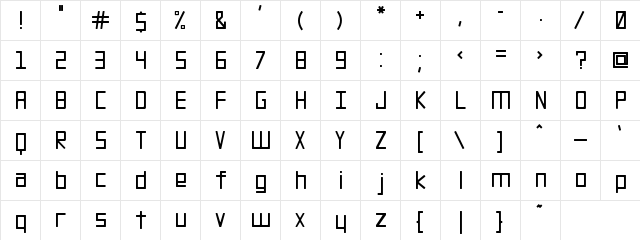
Screaming Neon Regular
Design Context for Screaming Neon Typeface
Screaming Neon has a distinctly futuristic character, with geometric precision and clean angles that feel at home in technology, gaming, and sci-fi contexts.
Pro Tip: Use Screaming Neon in combination with a neutral sans for body text. Let it define the brand voice in headlines while keeping reading comfortable elsewhere.